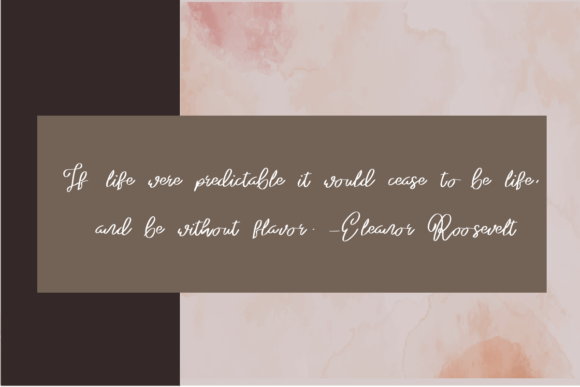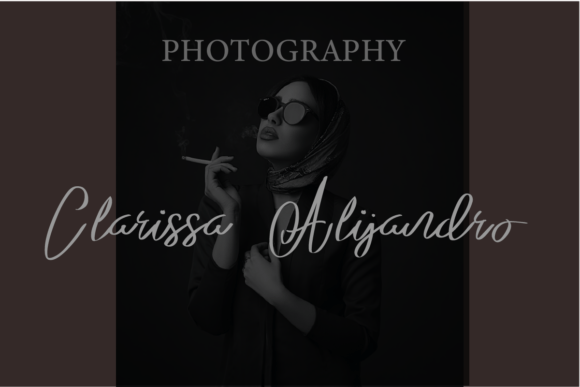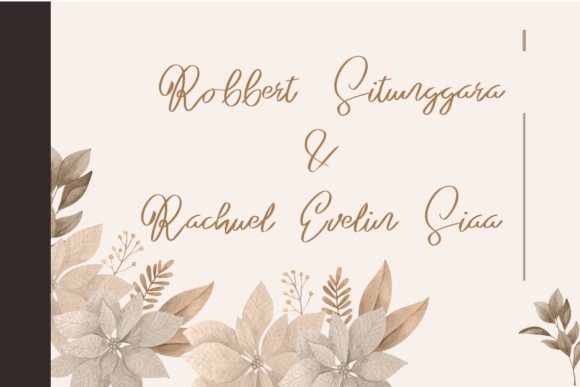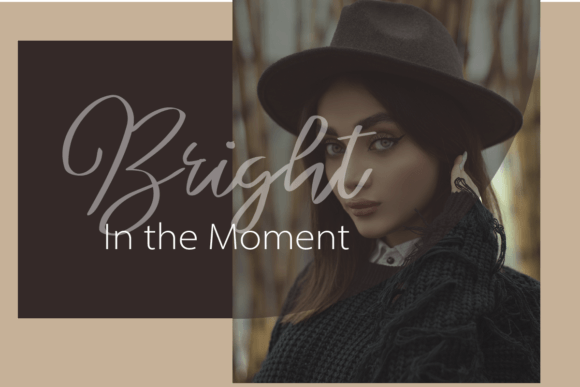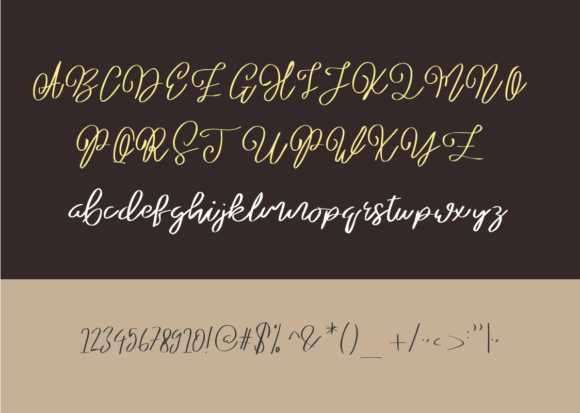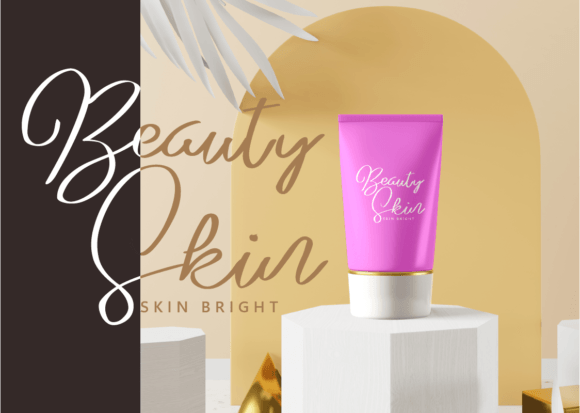
Keylla Sativa Font Font – Free Download
Introduction to Keylla Sativa Font Font
Fonts play a crucial role in design, and the Keylla Sativa Font font is a typeface that brings both character and versatility to any project. Whether you’re working on a branding project, a website, or a print design, the Keylla Sativa Font font offers a unique style that can elevate your work.
Keylla Sativa is a modern chic Signature Font with magical pressure.
This font is perfect for creating signature logos and watermarks for photography studios or wedding invitations, and best for initial or branding logo signatures .
Key Features of Keylla Sativa Font Font
Why Choose Keylla Sativa Font Font?
The Keylla Sativa Font font is more than just a typeface – it’s a design tool that helps you communicate your message with style and clarity. Its unique character set and versatile design make it suitable for a wide range of applications, from elegant invitations to bold headlines.
With its carefully crafted letterforms and balanced proportions, the Keylla Sativa Font font ensures readability and visual appeal across all mediums.
What makes Keylla Sativa Font font special?
The Keylla Sativa Font font stands out with its unique design, exceptional readability, and versatility across various design applications.